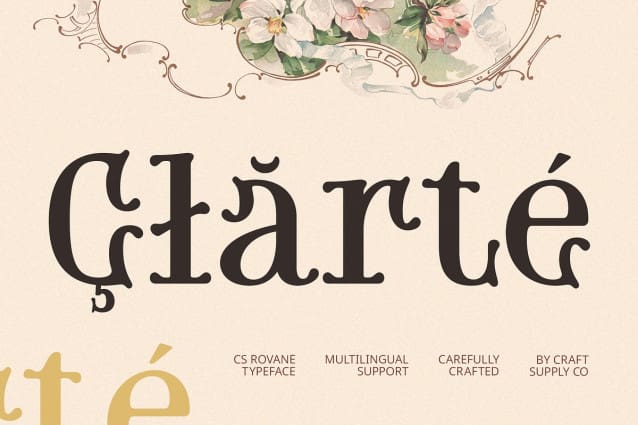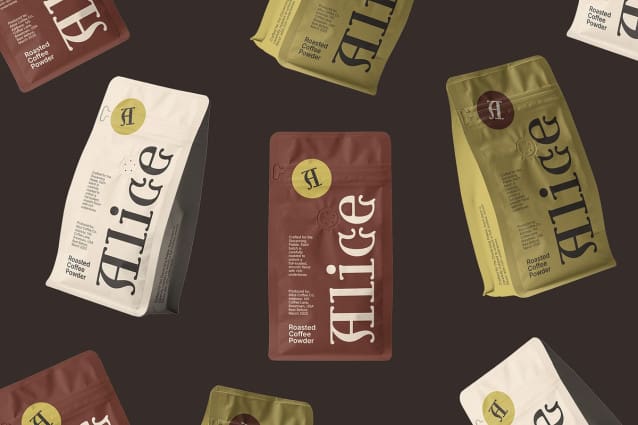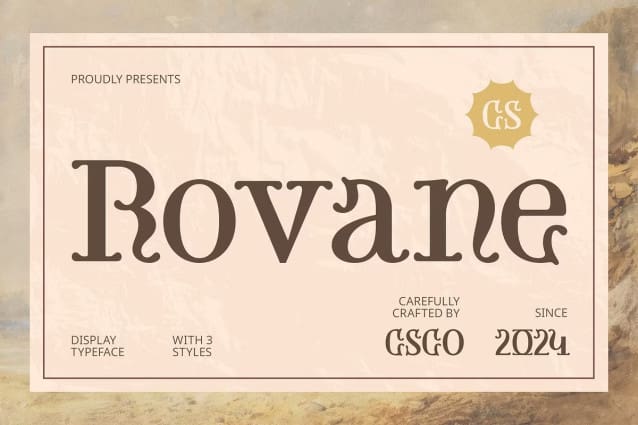
CS Rovane Font
CS Rovane Font is a display font inspired by the uncial style, characterized by distinctive, curved, and rounded letterforms. Drawing from the rich history of medieval calligraphy, this font evokes the elegance and artistry of ancient handwritten scripts. Its graceful curves and unique structure give it an unmistakable classic feel, transporting users back to a time when every letter was crafted with care and precision.
Classic, Elegant, and Rich in Historical Appeal The uncial design of CS Rovane brings a sense of authenticity and historical charm to any project. With its soft, flowing curves and slightly rounded edges, the font conveys a vintage yet refined aura, making it ideal for designs that wish to capture the essence of ancient times. This font exudes a quiet sophistication and offers a timeless aesthetic that transcends modern trends, making it an excellent choice for projects with a traditional or medieval focus.
Perfect for Historical and Mystical Designs CS Rovane is a fitting choice for any design project that seeks to evoke the past, whether it’s the mystique of medieval manuscripts, the grandeur of ancient books, or a sense of mysticism and legend. This font is particularly effective for book covers, posters with historical or fantasy themes, and designs that evoke a sense of antiquity or mystery.